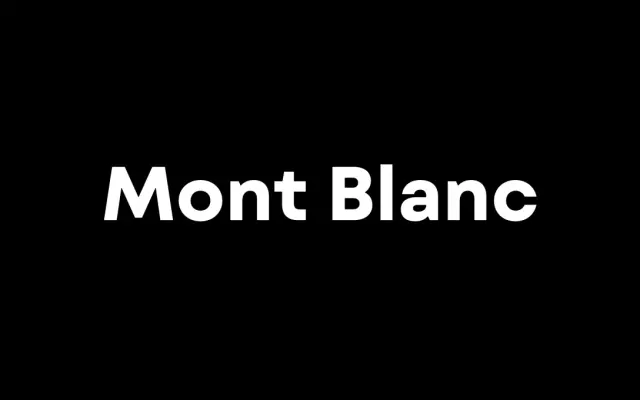
Mont Blanc
Fontfabric · Svetoslav Simov, Viktoria Usmanova · 2021
A text-optimised geometric sans derived from Fontfabric's Mont, adding elevated x-height and tighter spacing across eight weights with matching italics and variable fonts.
Designed by Svetoslav Simov and Viktoria Usmanova, Mont Blanc takes the geometric character of the Mont family and refines it for smaller sizes, with improved spacing and legibility for body copy. The family runs to 16 static styles plus two variable fonts covering the full weight range from Thin to Black, each with a matching italic. Extended Latin, Greek and Cyrillic coverage with over 700 glyphs makes it serviceable across multilingual editorial, UI and branding projects.
Described explicitly as a geometric sans-serif by the foundry, with elevated x-height and text-optimised spacing derived from the geometric Mont family.